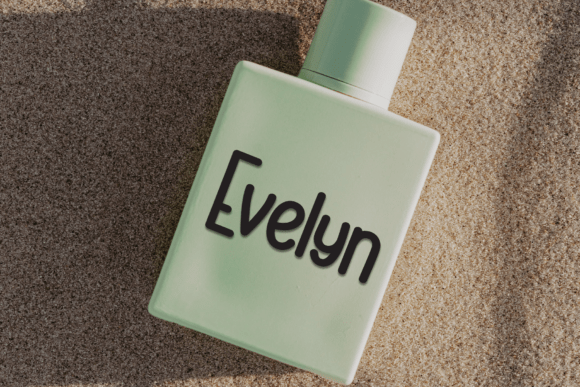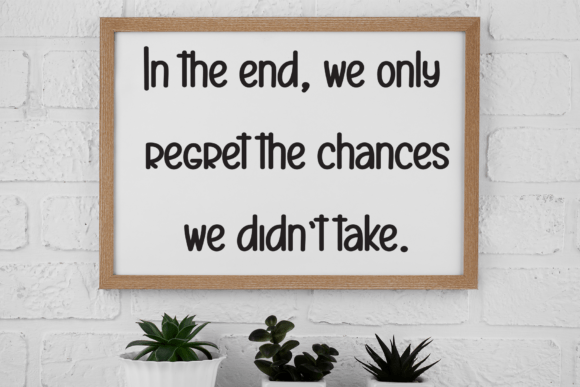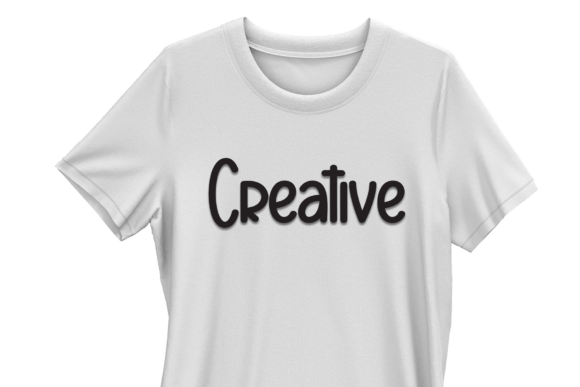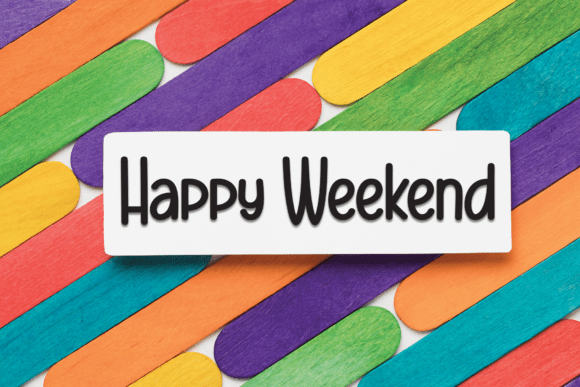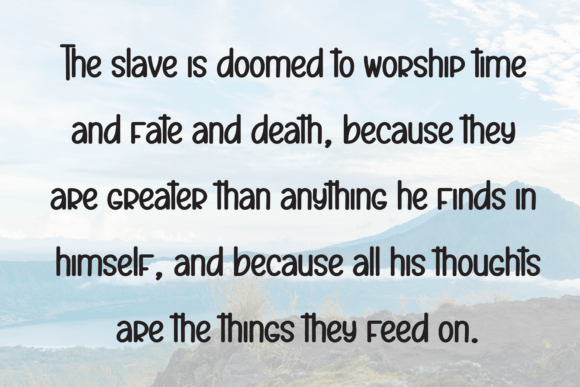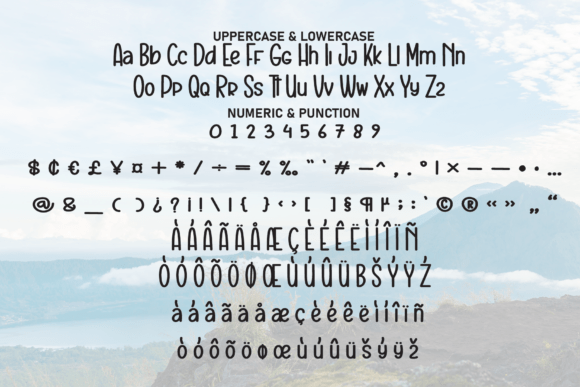
Introduction to Monday Mountain Font
Have you ever stared at a blank canvas, waiting for the perfect font to bring your creative project to life? For designers, finding the right font can be a daunting task. But what if we told you about a font that’s as easy to use as a Sunday morning stroll in the park? Enter the Monday Mountain Font, a casual and neat display font that radiates a fresh, friendly vibe.
Whether you’re designing packaging, posters, or social media graphics, the Monday Mountain Font is the perfect design resource to add a touch of approachability and clarity to your work. Its clean lines and relaxed structure make it a breeze to use, and its polished appearance ensures that your projects look high-quality and professional. Plus, with a transparent background option, you can easily integrate it into your designs.
Key Features of Monday Mountain Font
- Unique, hand-drawn design with a minimalist aesthetic, perfect for creative projects and design resources.
- Features a transparent background, allowing for easy layering and customization in your design work.
- High-quality font with a crisp, clean appearance, suitable for a range of design applications, from logos to typography.
- Designed to be versatile and adaptable, making it an excellent choice for a variety of creative projects and design resources.
Honest Review: Monday Mountain Font
As a designer, I’m always on the lookout for new and exciting design resources to enhance my creative projects. The Monday Mountain Font is one such resource that caught my eye, and I’m excited to share my honest review with you.
- The Monday Mountain Font has a unique and quirky design aesthetic that’s perfect for adding a touch of personality to your projects.
- The font is highly customizable, with a range of styles and weights to choose from, making it easy to find the perfect fit for your design needs.
- The font may not be suitable for all design projects, particularly those that require a more formal or professional tone.
Overall, I’m impressed with the Monday Mountain Font’s unique design and customization options. While it may have some limitations, it’s a great resource to have in your design arsenal, especially for creative projects that require a bit of flair. If you’re looking for a free design resource with a lot of personality, the Monday Mountain Font is definitely worth checking out.
Tips for Getting the Most Out of Monday Mountain Font
To get the most out of Monday Mountain Font, experiment with different font sizes and styles. You can also use the font with a transparent background to create a unique design effect. Additionally, consider combining Monday Mountain Font with other design elements, such as images and graphics, to add depth and interest to your project.
Common Use Cases for Monday Mountain Font
Monday Mountain Font is suitable for a variety of creative projects, including logos, business cards, and marketing materials. Its high-quality design makes it an excellent choice for presentations, posters, and other visual communications. With its transparent background option, you can easily incorporate the font into your design without worrying about background compatibility issues.